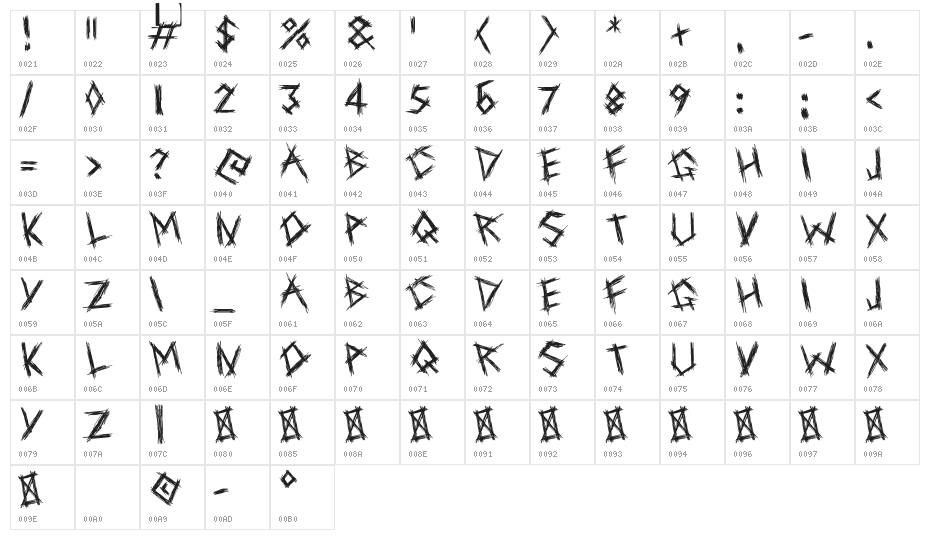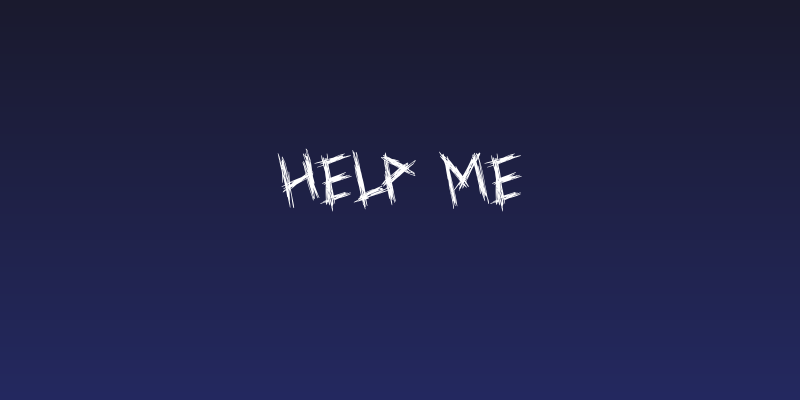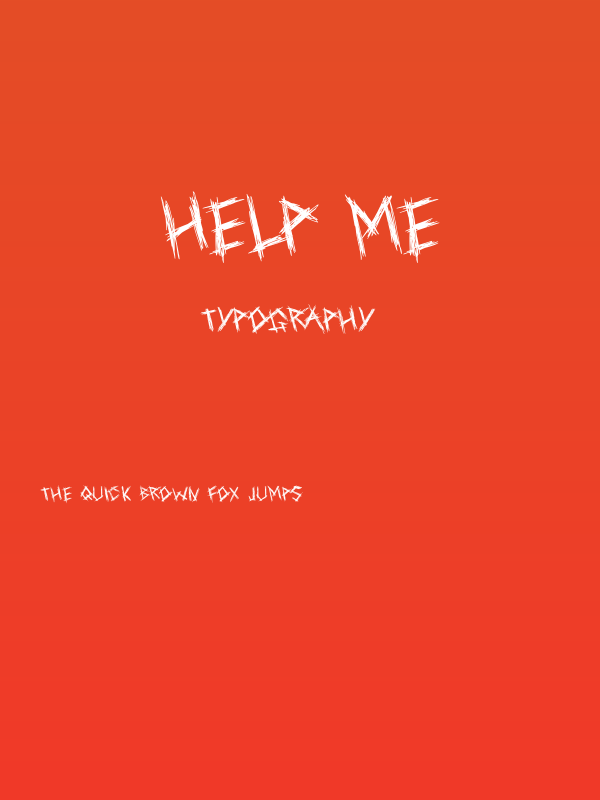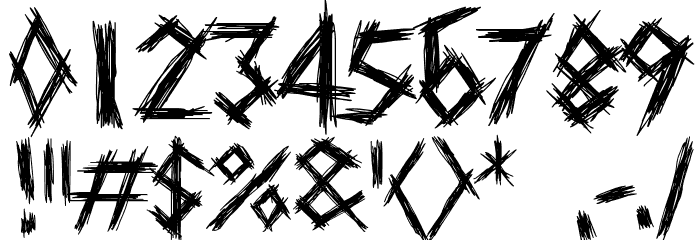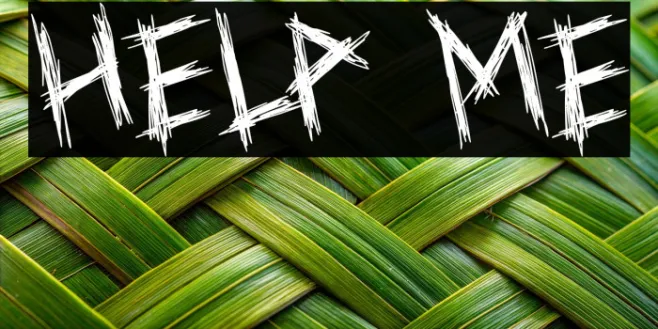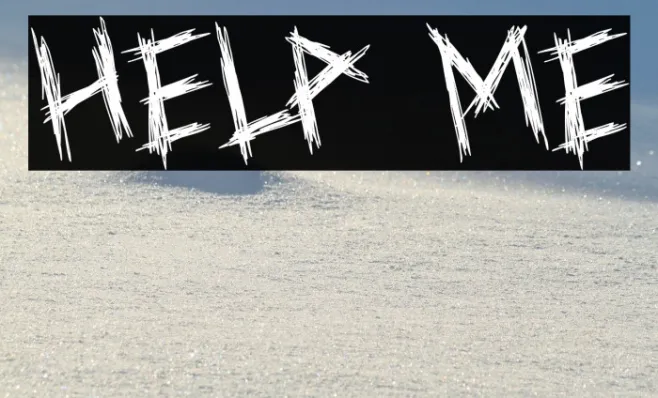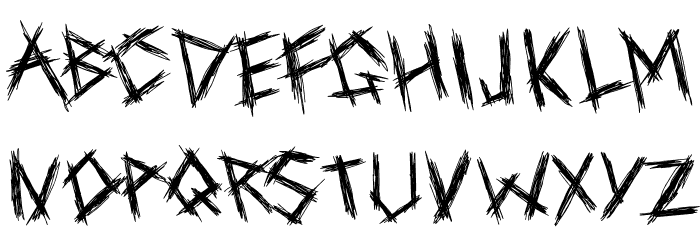
Help Me Font
Help Me Description
This font features a highly distinctive and edgy style, characterized by its chaotic, scribble-like strokes. Each character appears as if it has been sketched with a rough, jagged line, giving it a raw and energetic feel. The uppercase and lowercase letters maintain a consistent design, with sharp angles and uneven lines that create a sense of movement and intensity. Numbers and special characters follow the same aesthetic, ensuring a cohesive look across all glyphs. This font is perfect for projects that require a bold, rebellious, or unconventional appearance.
| Overall Style | Modern, Edgy |
| Proposed Projects | Ideal for album covers, streetwear branding, graffiti art, and edgy posters. |